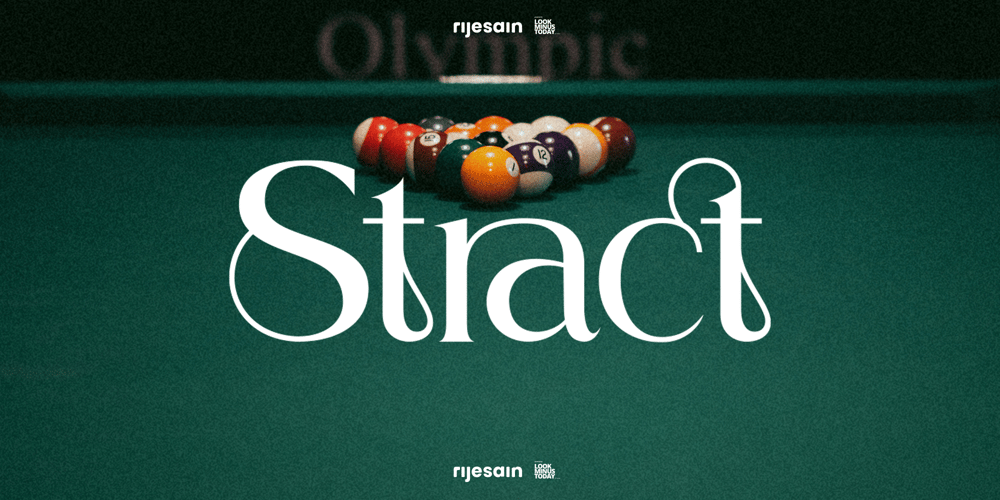
Stract Font Family was designed by Arif Rijal and published by Look Minus Today. Stract contains 1 styles and family package options. Present to you for New Modern Serif, Stract!Stract is a sophisticated ligature and alternate serif from us. This typeface has been made carefully to make sure its premium quality and luxury feel.The ligatures and alternates makes this typeface unique and stands out rather than the regular serif font.This font is very suitable for logo, headline, tittle, and the other various formal forms such as invitations, labels, logos, magazines,books, greeting / wedding cards, packaging, fashion, make up, stationery, novels, labels or any type of advertising purpose.Features :- Ligatures & Alternates- Letters, numbers, symbols, and punctuation- No special software is required to use this typeface even work in Canva- Multilingual SupportPlease contact us if you have any questions. Enjoy crafting and thanks for supporting us!Thank you.